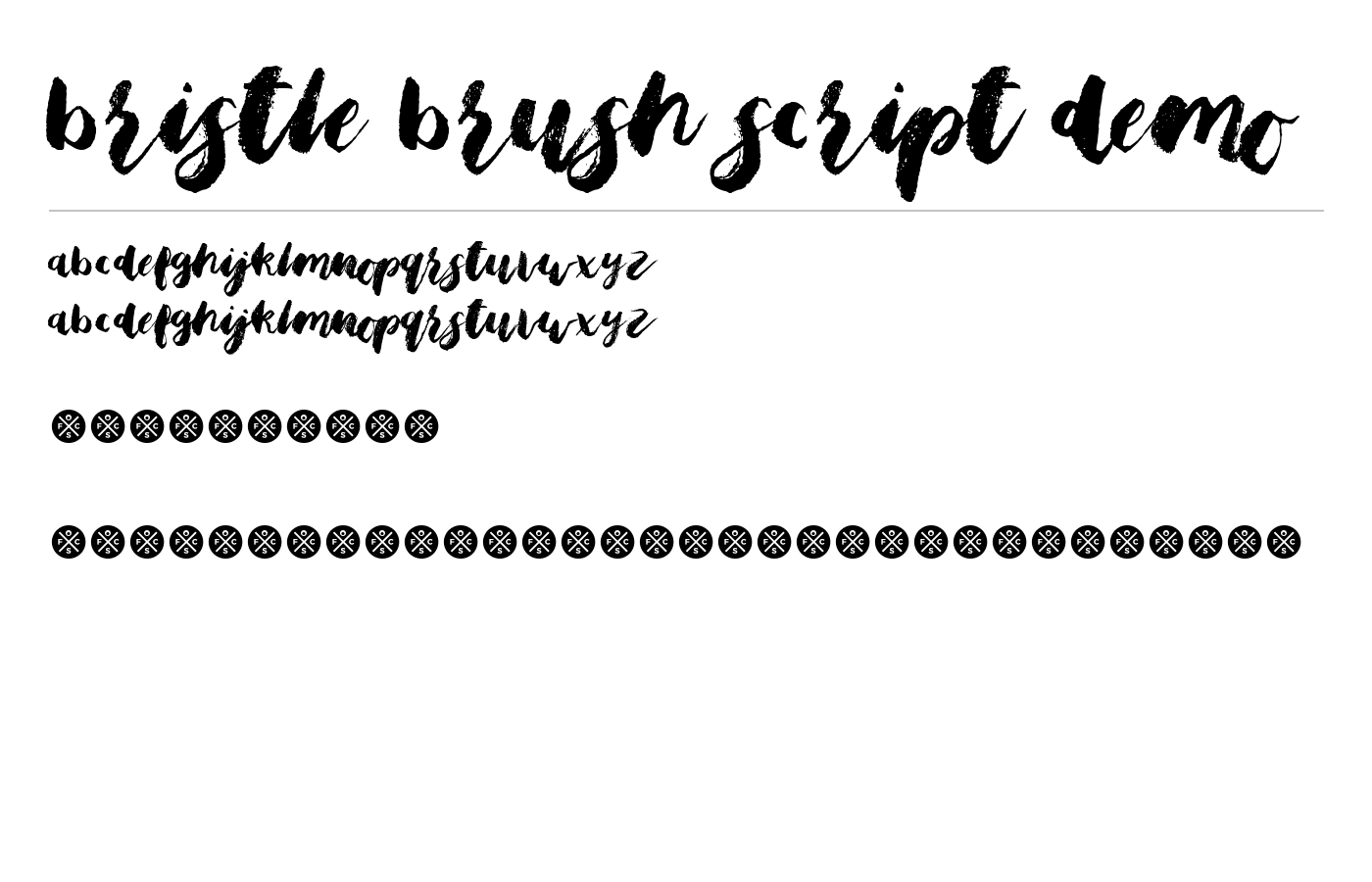
Bristle Brush Script Demo is an expressive and dynamic brush script font that captures the natural, textured look of hand-painted lettering with bold, irregular strokes and a lively rhythm. Its casual yet artistic style makes it perfect for creative projects like logos, posters, and packaging that want to convey a handcrafted, energetic, and personal feel. This font shines in headline or display use where its distinctive brush texture can truly grab attention and add a vibrant, authentic touch.
Bristle Brush Script Demo Font
About Bristle Brush Script Demo Font